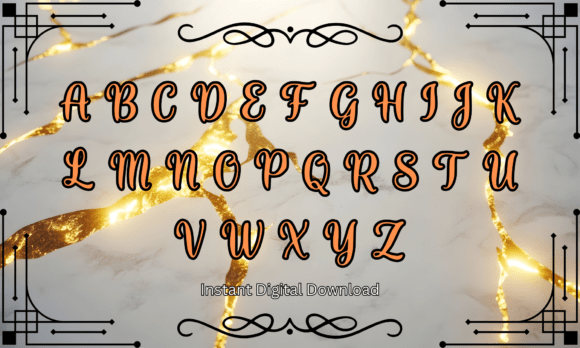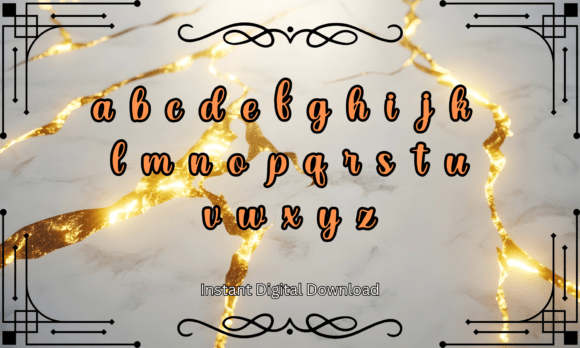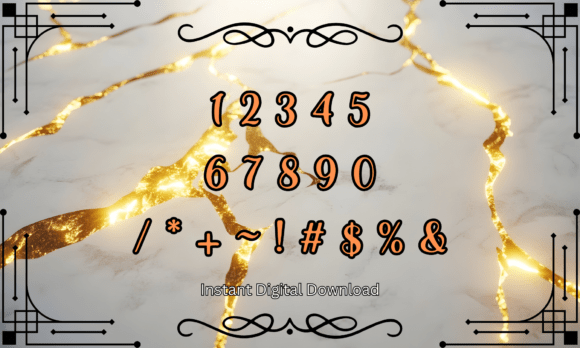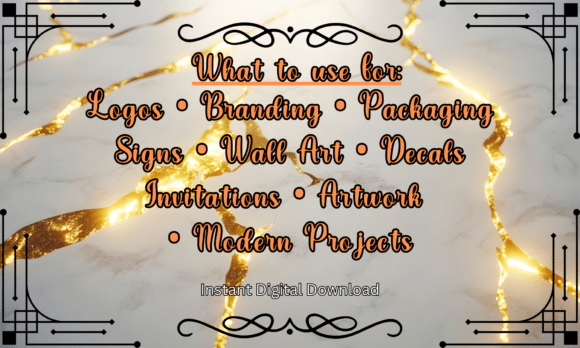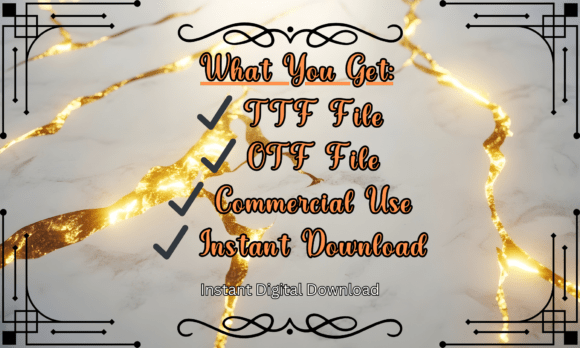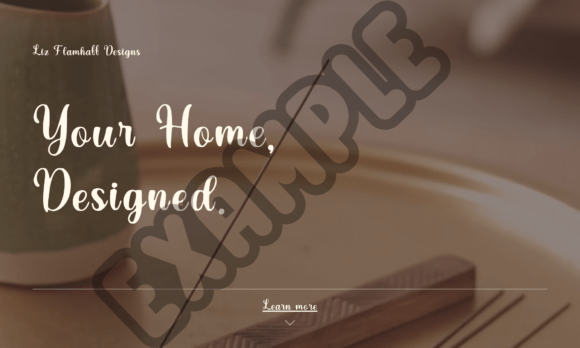
Introduction to Modern Luxe Font
Modern Luxe is a sophisticated script font designed for elegant branding, high-end designs, and timeless luxury aesthetics.
Smooth curves and refined strokes make it perfect for premium projects 💎 Perfect For ✔ Luxury branding & logos ✔ Wedding invitations & stationery ✔ Social media graphics ✔ Boutique packaging ✔ Quotes & wall art ✔ Cricut & Silhouette projects ✔ Canva designs ✔ Digital planners 📦 You Will Receive ✔ TTF file ✔ OTF file ✔ Instant digital download ✔ Commercial use included 💻 Compatible With • Canva • Cricut Design Space • Silhouette Studio • Adobe Illustrator • Adobe Photoshop • Procreate • Affinity Designer 🎨 Style & Aesthetic • Modern luxury • Elegant script • High-end branding • Chic & sophisticated • Minimal glam 💖 Thank you so much for supporting PamlicoCreations 🤍 If you need help installing your font or have questions, feel free to message me—I’m always happy to help.
Key Features of Modern Luxe Font